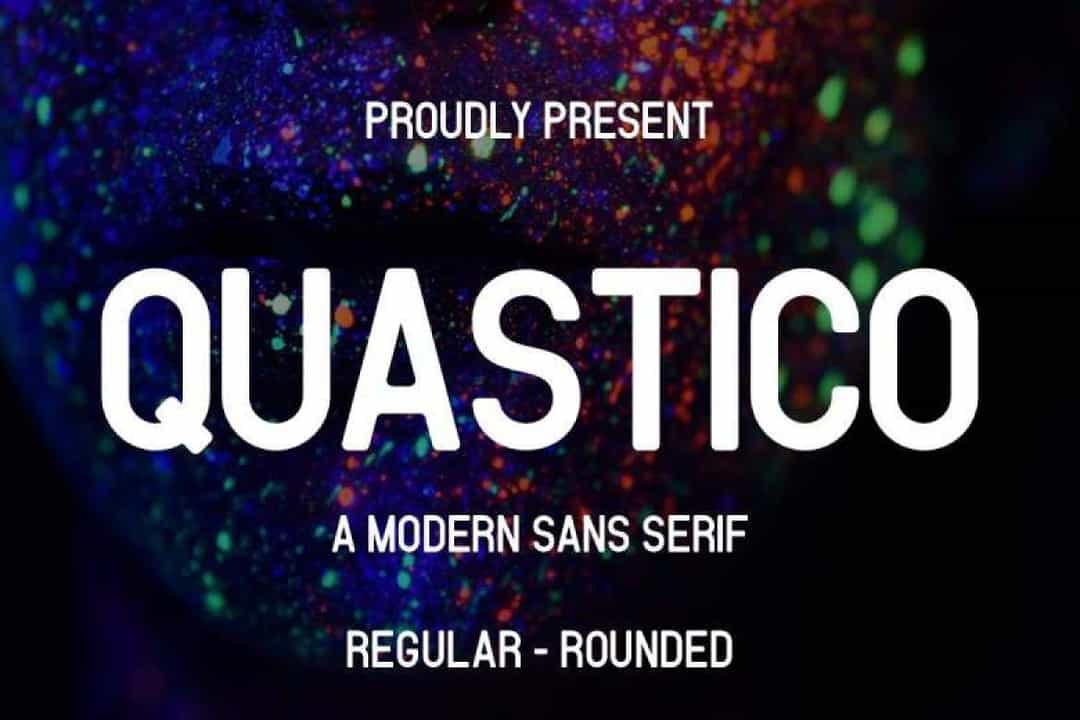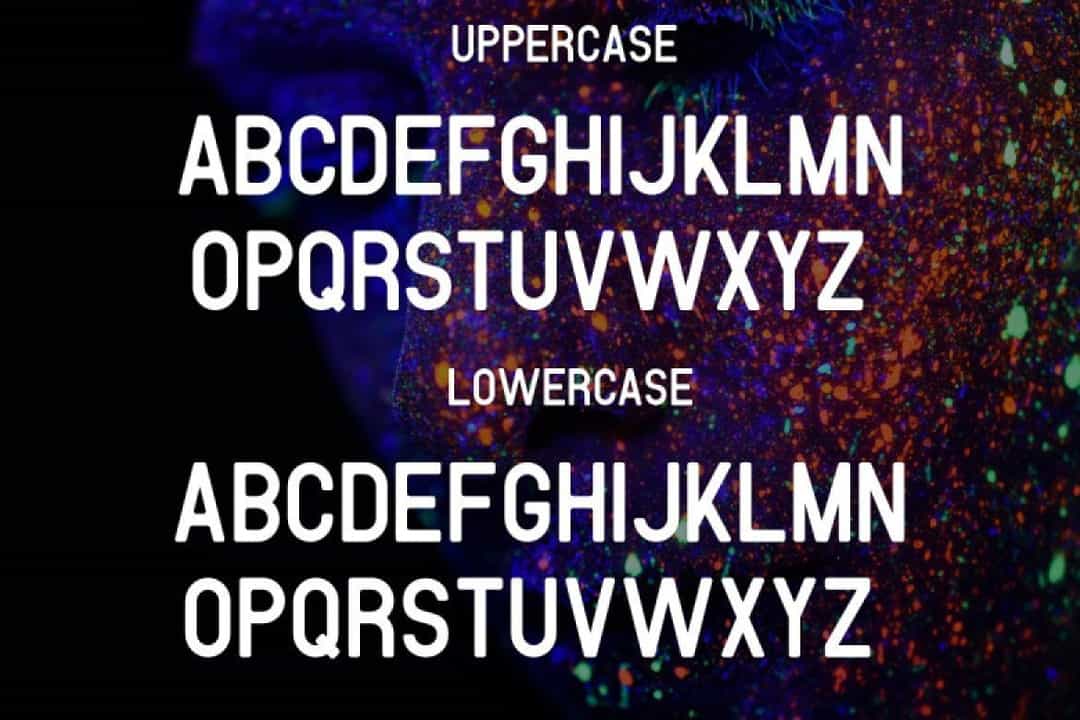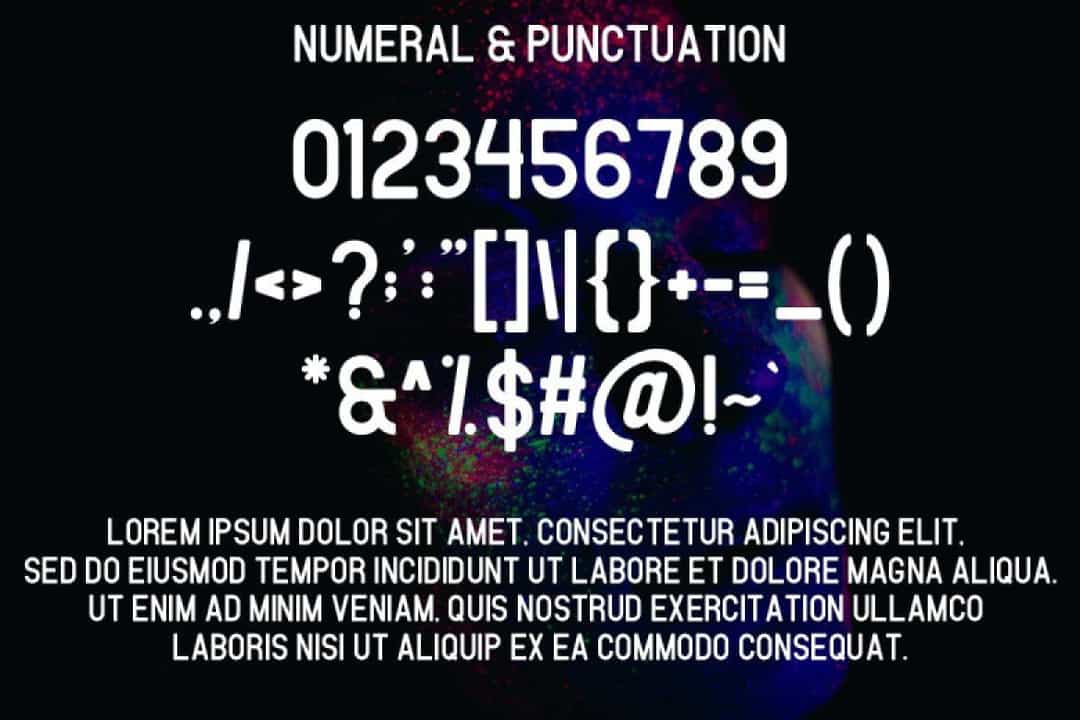
Quastico is an ultramodern sans serif font which epitomizes modern style and sophistication. Its clean lines exude professionalism and confidence – ideal for branding, graphic design and web interfaces projects as well as any application which demands sleek and contemporary aesthetic.